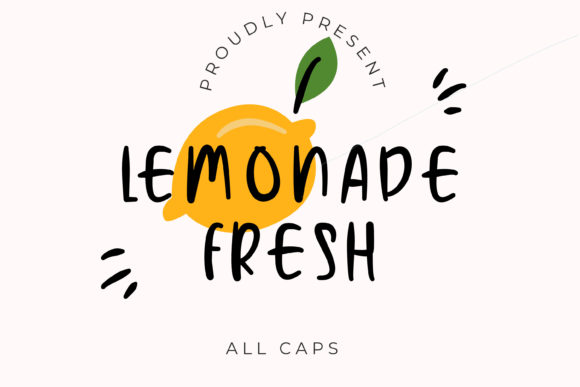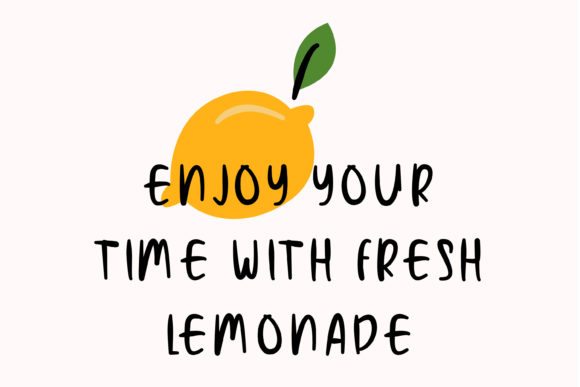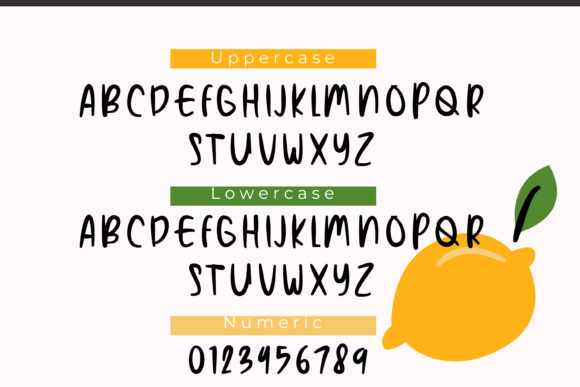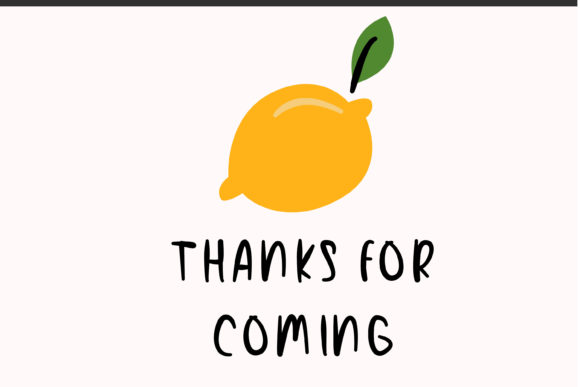
Lemonade Fresh Font
About Lemonade Fresh Font
Lemonade Fresh is a delightful and relaxed handwritten font that combines readability with a touch of charm. No matter the topic or design project, this font is a valuable asset for your font library, as it has the power to elevate any creation.
With its clean and legible letterforms, Lemonade Fresh ensures easy readability across various mediums. Whether you’re designing a logo, crafting an invitation, or creating social media graphics, this font effortlessly enhances your work with its approachable and friendly vibe.
The versatility of Lemonade Fresh makes it suitable for a wide range of projects. Its relaxed and inviting style adds a welcoming touch to any design, creating a positive and enjoyable visual experience for your audience.
Embrace the potential of Lemonade Fresh as you explore its versatility and incorporate it into your font collection. With its readable and relaxed nature, this font is sure to bring a refreshing and delightful touch to all your creative endeavors.